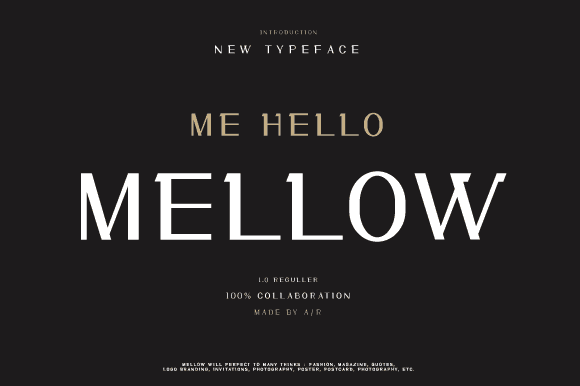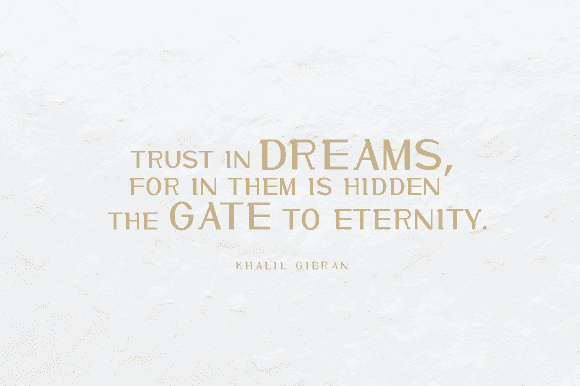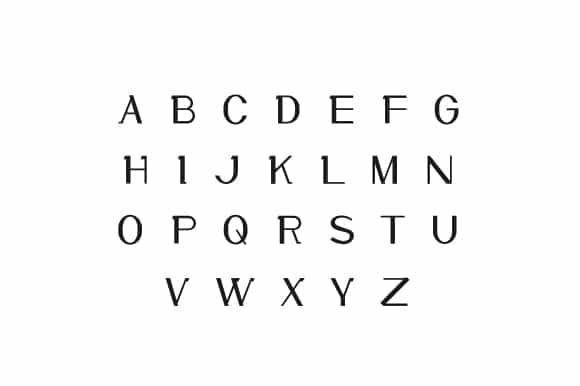
Mellow Serif Font is a beautiful as well as a versatile font. It’s a classic design which makes them still suitable with modern look, and the all caps style makes it easily readable and flexible to combine with other fonts.